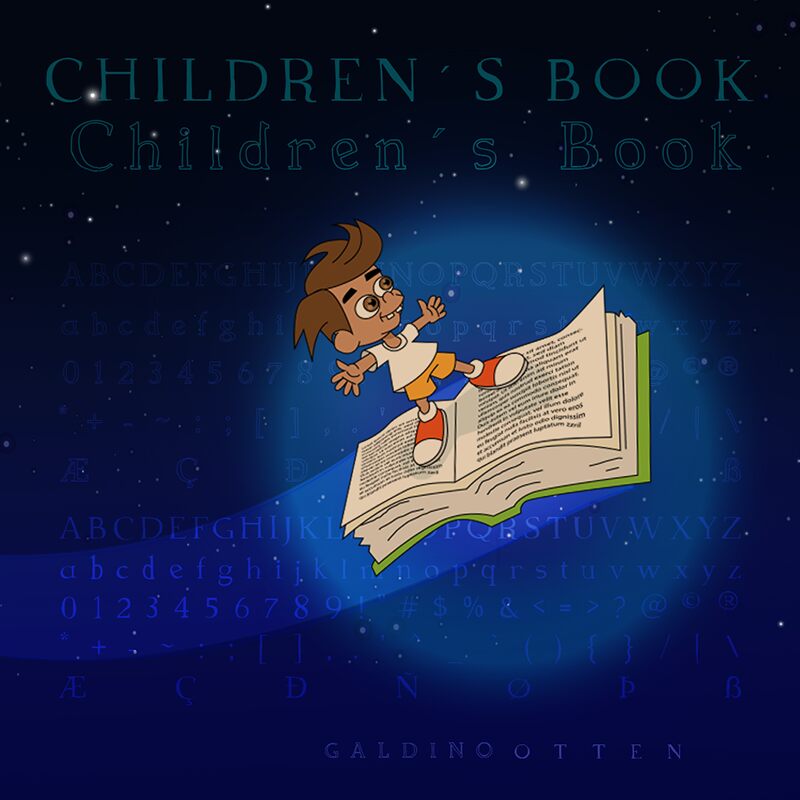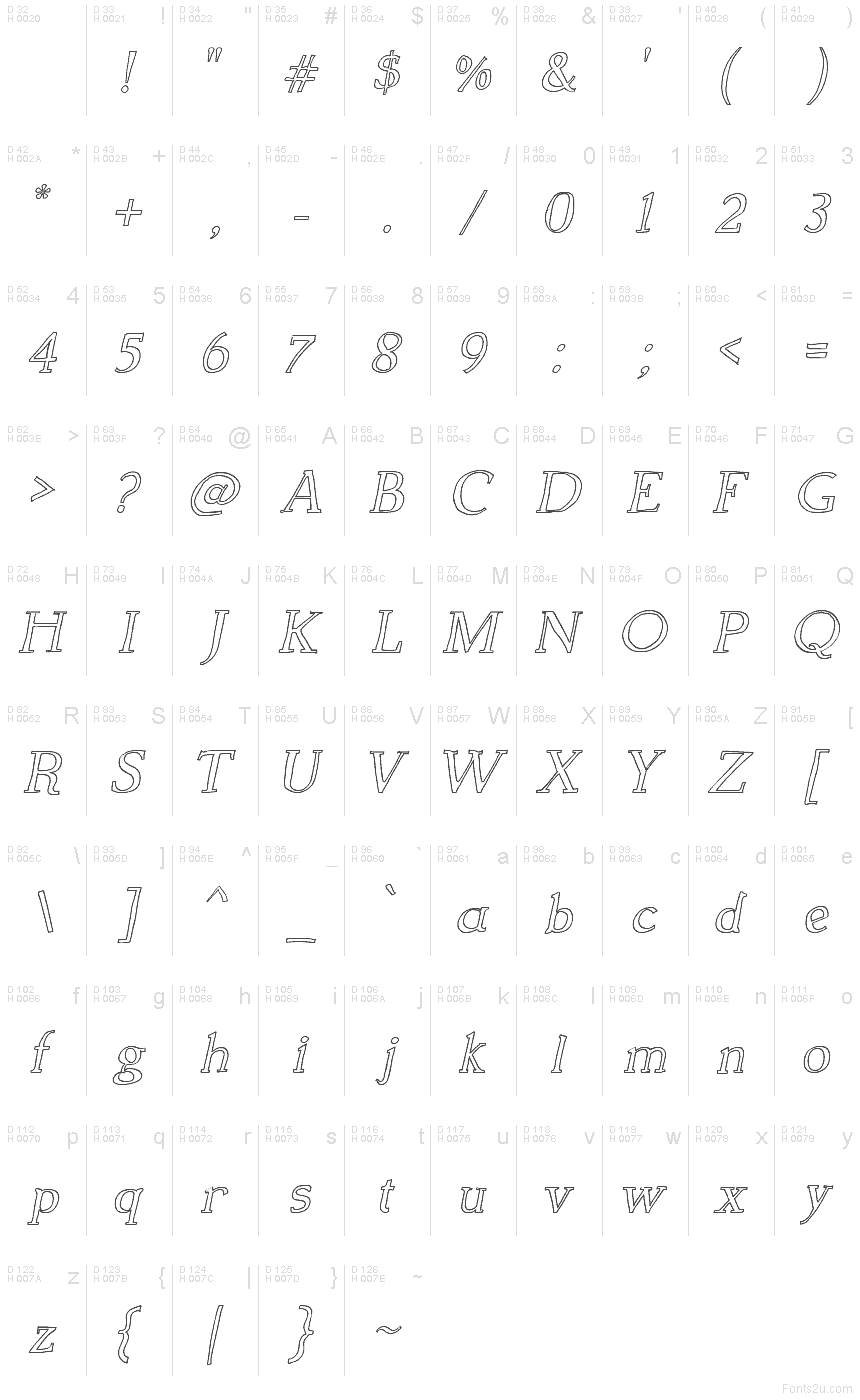
Children's Book Italic font from Galdino Otten Fonts is an outlined free display font with a cartoonish style. The displayed letters' elegant appearance is combined with a decorative and artistic look for a unique visual result. The end result reminds us of font-writing included in books that target children's domains.
Use this charming, flowing, and whimsical typeface in book covers, titles, posters, magazines covers and other materials.